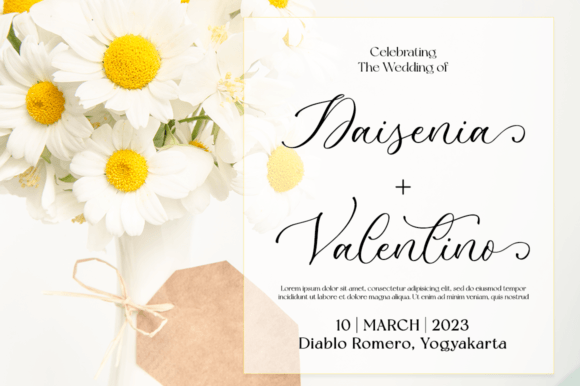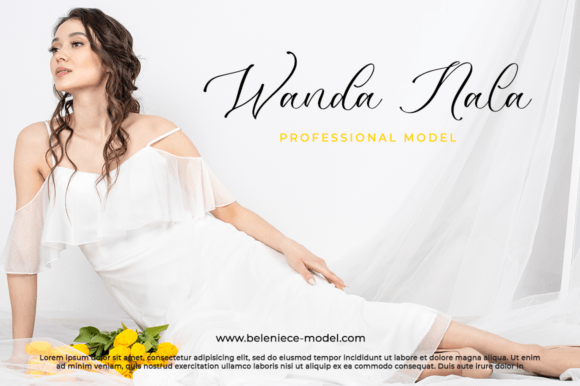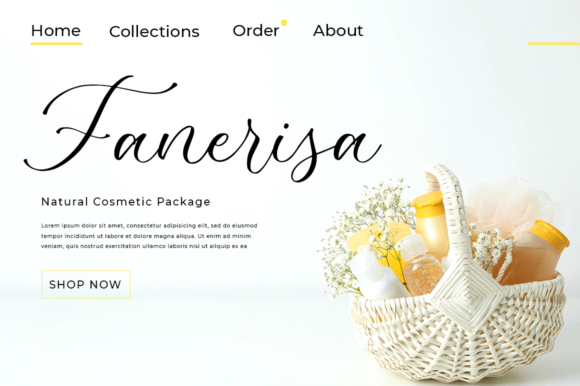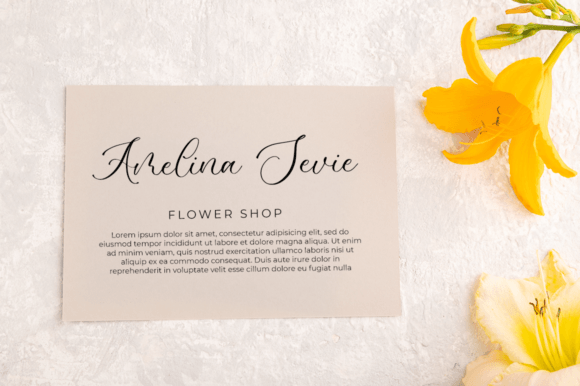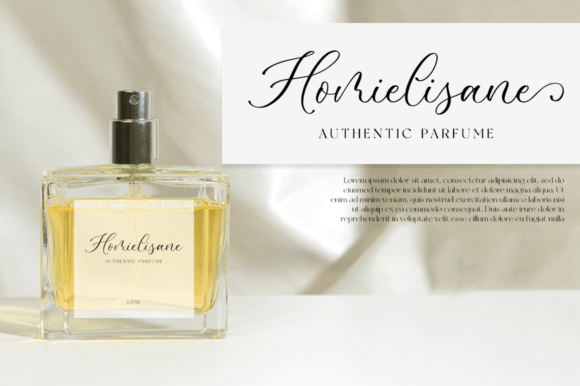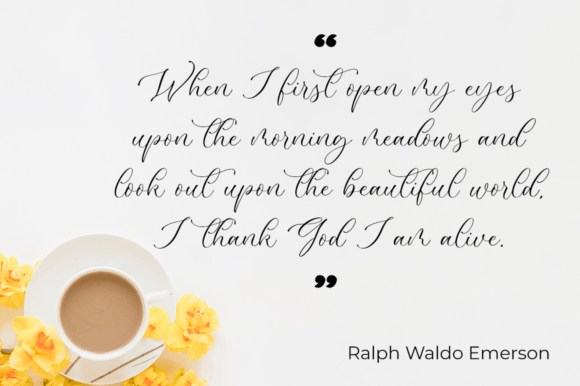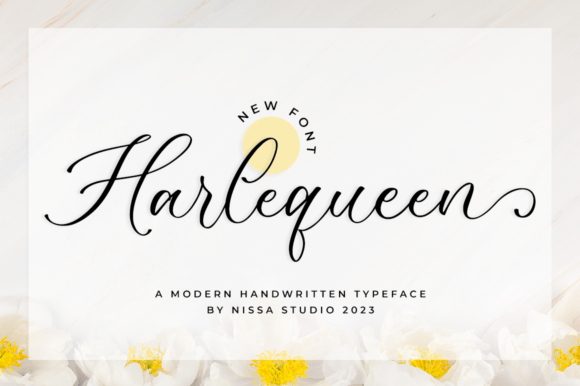
Introducing Harlequeen Font: Elevate Your Designs with Elegance and Class
Are you a designer or crafter looking for a font that exudes sophistication and refinement? Look no further than Harlequeen Font, a lovely and delicate script font that is sure to add a touch of elegance to your designs. In this article, we’ll take a closer look at Harlequeen Font, its features, and how it can elevate your designs to the next level.
What is Harlequeen Font?
Harlequeen Font is a beautiful script font that is perfect for designers and crafters who want to add a touch of class and sophistication to their work. This font was particularly crafted for those who need a beautiful and refreshing look to their designs. With its delicate and elegant strokes, Harlequeen Font is sure to impress.
Key Features of Harlequeen Font
So, what makes Harlequeen Font so special? Here are some of its key features:
- PUA Encoded: Harlequeen Font is PUA (Private Use Area) encoded, which means that you can access all of the glyphs and swashes with ease. This makes it easy to use and customize the font to suit your needs.
- Elegant and Delicate: Harlequeen Font features elegant and delicate strokes that are sure to add a touch of sophistication to your designs.
- Refreshing Look: This font is perfect for designers and crafters who want to add a refreshing look to their designs. Whether you’re working on a branding project, a wedding invitation, or a craft project, Harlequeen Font is sure to impress.
Uses of Harlequeen Font
So, what can you use Harlequeen Font for? The possibilities are endless! Here are some ideas to get you started:
- Branding: Use Harlequeen Font to create elegant and sophisticated branding materials, such as logos, business cards, and letterheads.
- Wedding Invitations: Add a touch of elegance to your wedding invitations and save-the-date cards with Harlequeen Font.
- Crafting: Harlequeen Font is perfect for crafters who want to add a personal touch to their projects. Use it to create beautiful journal pages, scrapbook layouts, and card making projects.
- Signage: Use Harlequeen Font to create elegant and eye-catching signage for your business or event.
Tips for Using Harlequeen Font
Here are some tips for using Harlequeen Font effectively:
- Pair it with Other Fonts: Harlequeen Font looks great when paired with other fonts. Try pairing it with a bold sans-serif font for a striking contrast.
- Use it for Headings: Harlequeen Font is perfect for headings and titles. Use it to add a touch of elegance to your designs.
- Experiment with Swashes: With its PUA encoding, Harlequeen Font comes with a range of swashes and glyphs. Experiment with these to add a personal touch to your designs.
In conclusion, Harlequeen Font is a beautiful and elegant script font that is perfect for designers and crafters who want to add a touch of sophistication to their work. With its PUA encoding, elegant strokes, and refreshing look, Harlequeen Font is sure to elevate your designs to the next level. Whether you’re working on a branding project, a wedding invitation, or a craft project, Harlequeen Font is a great choice.